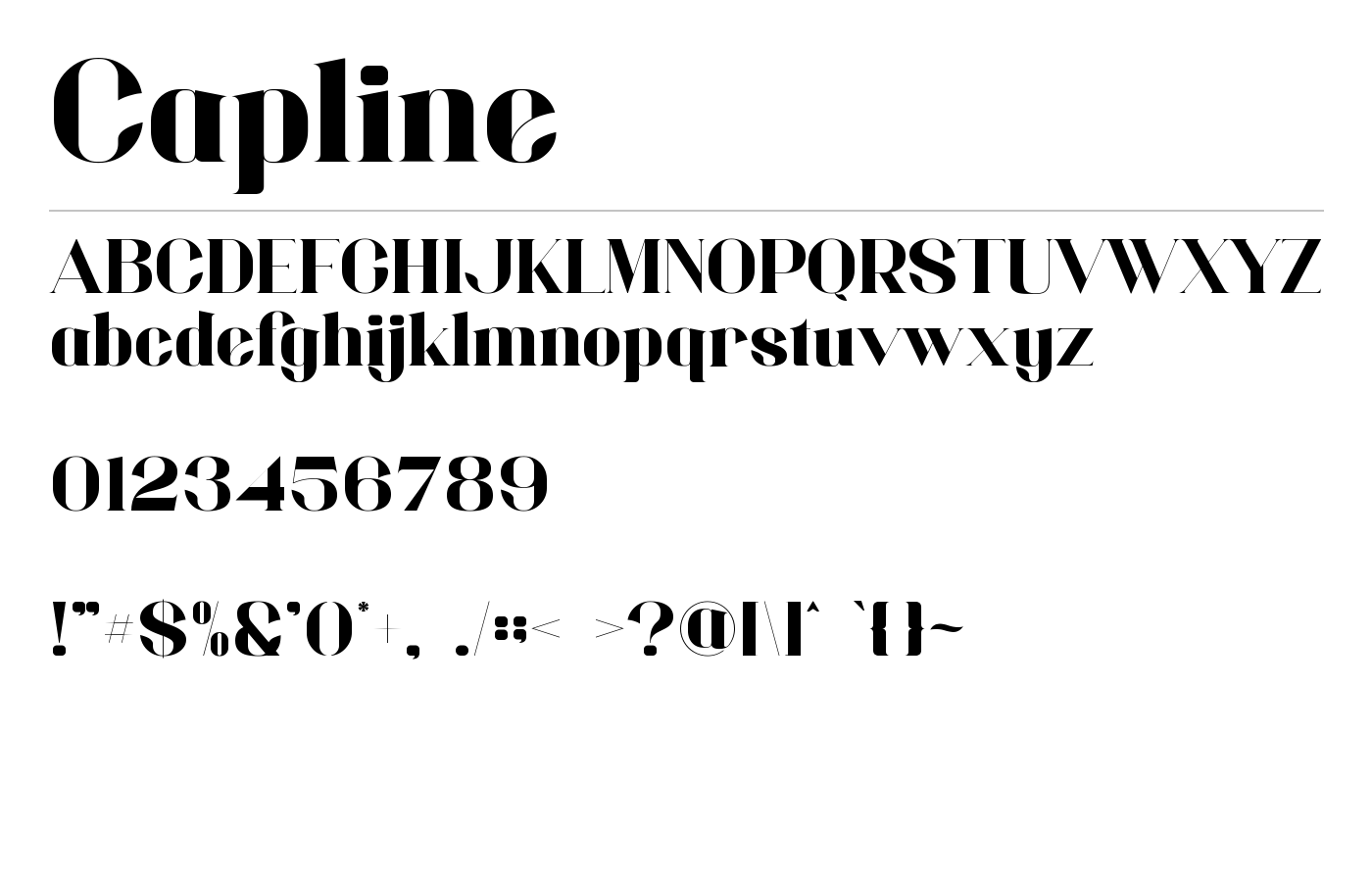
Capline is a bold, modern serif font with high contrast between thick and thin strokes, featuring sharp, geometric serifs that give it a stylish and sophisticated look. Its elegant letterforms with distinct double-story characters and unique flourishes make it ideal for luxury branding, headlines, and editorial use where a strong, impactful presence is desired. This font works best in settings that require a striking, fashionable statement, such as logos, packaging, and upscale magazines.
Capline Font